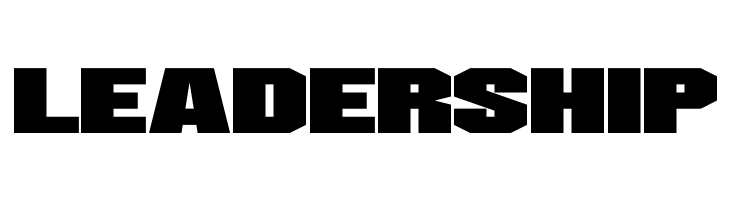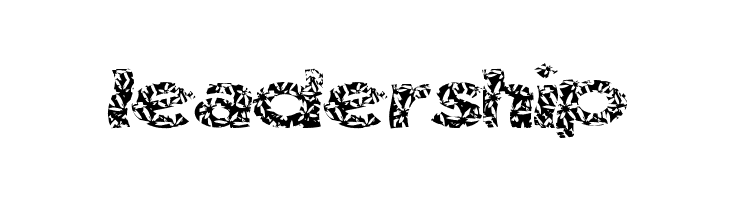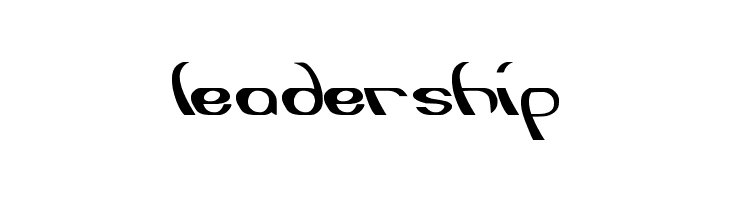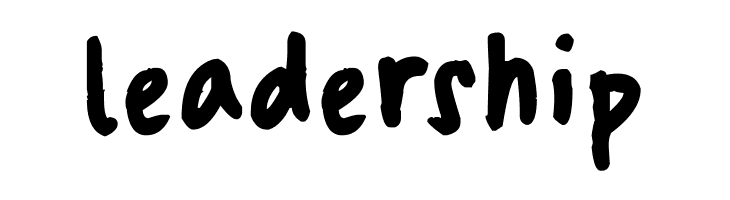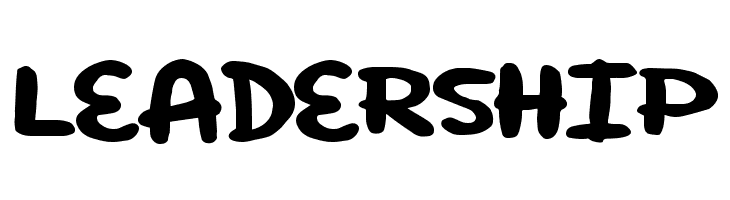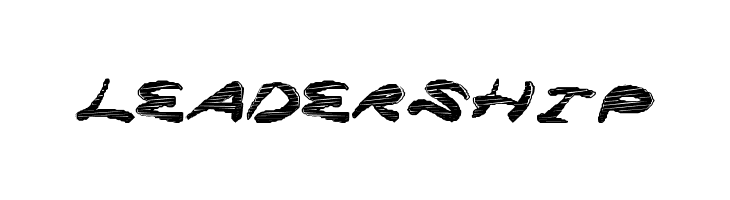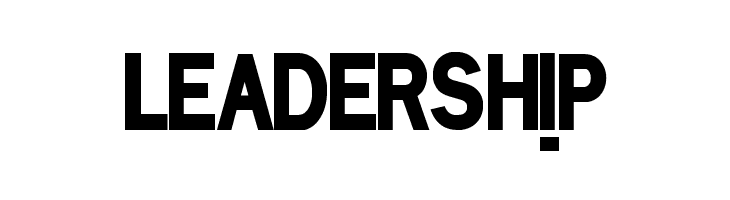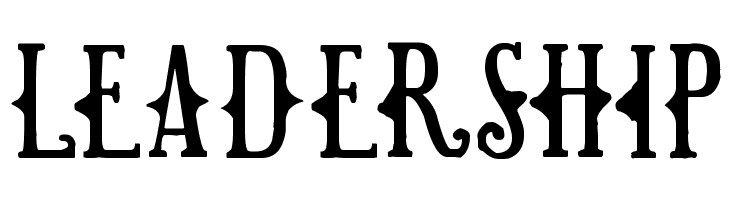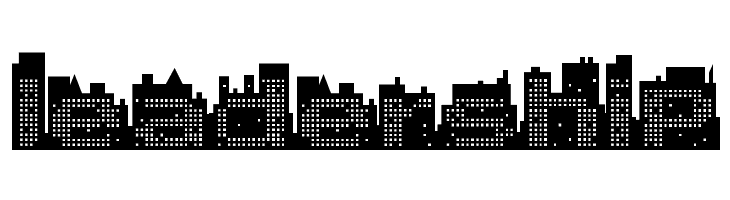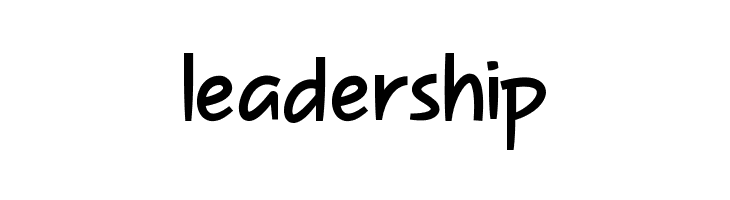
A bold, geometric font with a modern and impactful style.
A bold, brush-stroke font with a dynamic and energetic style.
A playful, rounded, and bold font with smooth curves.
( Darrell Flood )
A bold, scratchy, hand-drawn font with a playful and informal style.
( Darrell Flood )
A scratchy, hand-drawn italic font with dynamic and expressive strokes.
A bold, angular font with sharp, jagged edges and a dynamic style.
( Fonts by Jeff Bensch )
A city skyline-inspired font with characters resembling building silhouettes.
A bold, dynamic font with wide, condensed characters and a modern style.
A bold, angular font with a futuristic and edgy design.
( Darrell Flood )
A bold, geometric font with a modern and impactful style.
A decorative font styled to look like nails or tacks forming each character.
( Font by Jayvee D. Enaguas - grandchaos9000.deviantart.com )
A playful, informal font with rounded, irregular letterforms and consistent stroke width.
A tall, slender, and modern font with a sleek and elegant appearance.
( Haris Gunawan - lewosdesign.com )
A playful, handwritten font with smooth curves and bold strokes.
An expressive, hand-drawn font with dynamic and erratic strokes.
Surf-inspired pictogram font with bold, silhouette icons.
Surfing-themed pictogram display font with bold silhouettes.
A modern, artistic font with sharp angles and smooth curves.
( Xerographer Fonts - Max Infeld - xerographer.blogspot.com )
A bold, textured font with a wave-like pattern, ideal for decorative use.
A playful, decorative font with a tropical, textured pattern.
A bold, geometric font with a modern and impactful design.
( Fonts by Hector Suriel )
A bold, handwritten font with dynamic, slanted characters.
A bold, decorative font with playful serifs and artistic flair.
( Mahdi Salah )
A bold, rugged font with a hand-drawn, graffiti-like style.
A bold, modern font with strong, uniform strokes and high legibility.
( https://www.facebook.com/lukas.krakora )
A bold, hand-drawn font with a vintage, distressed look.
( Darrell Flood )
A bold, italicized font with a playful and dynamic style.
A playful, handwritten font with a dynamic, cursive style.
A playful, handwritten font with bold, irregular strokes and a casual style.
( Martin Sørensen )
A playful, bold handwritten font with expressive strokes and a casual style.
A bold, expressive handwritten font with thick strokes and a playful style.